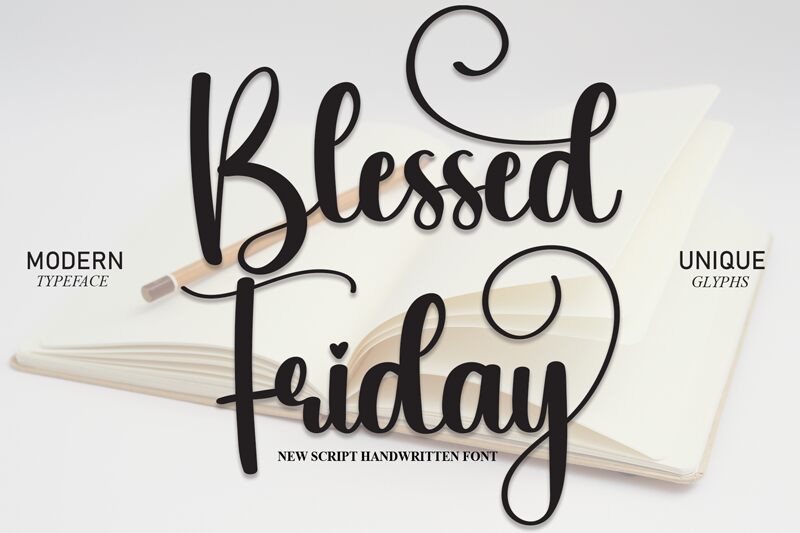
Blessed Friday
Blessed Friday, a creation by Scratchones, is a font that exudes elegance and sophistication with its calligraphic style. The semi-light weight of the strokes lends this typeface an air of delicacy, while the fluid continuity between letters captures the essence of traditional hand-lettering artistry. Its aesthetic appeal lies in the balance between its graceful curves and the subtle assertiveness of its lines.
Aesthetically versatile, Blessed Friday is a fitting choice for projects aiming to convey beauty, personal touch, or artisanal quality. Be it wedding invitations, branding materials for boutique businesses, or creative artwork captions; this font brings an authentic calligraphic experience into digital design.
The Blessed Friday font encapsulates charm and readability that makes it not just visually engaging but also practical for various applications where a touch of human flair is desired.